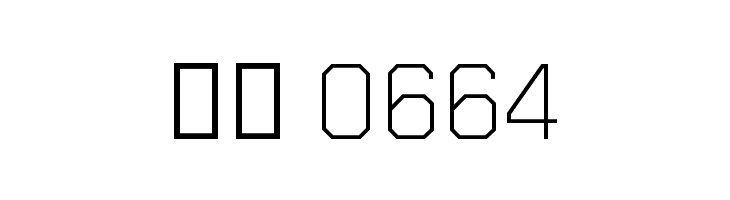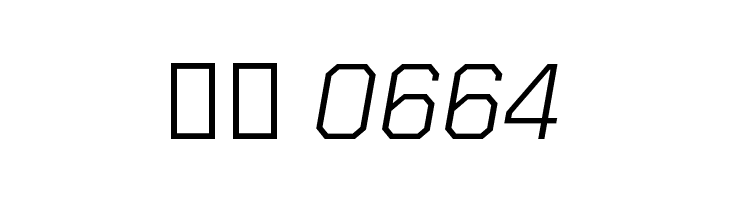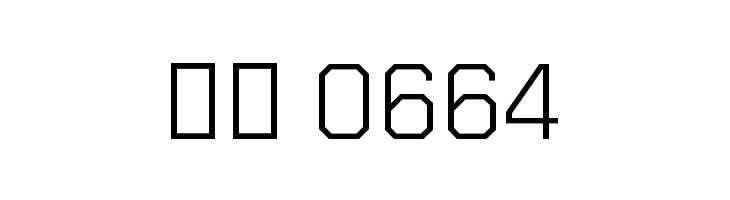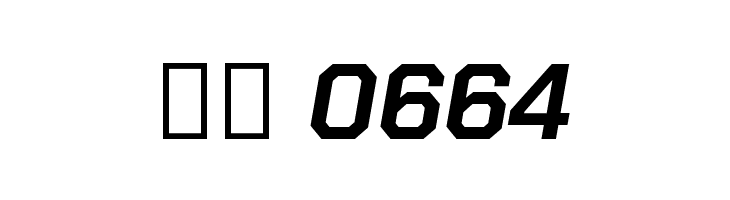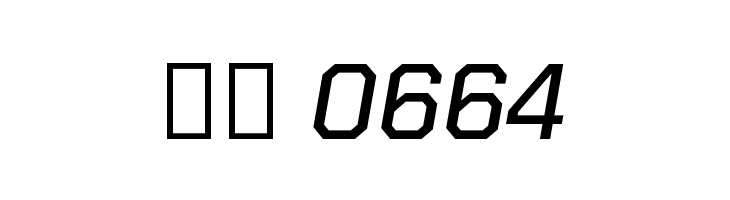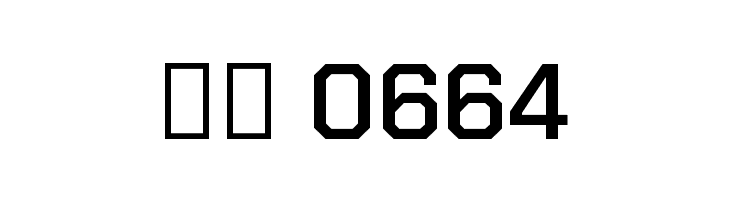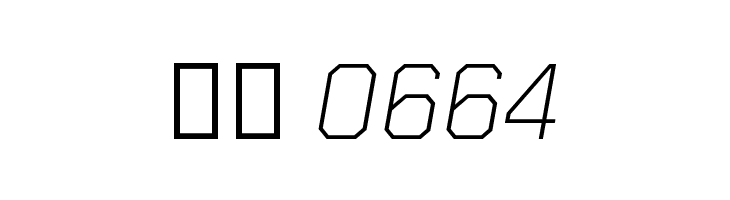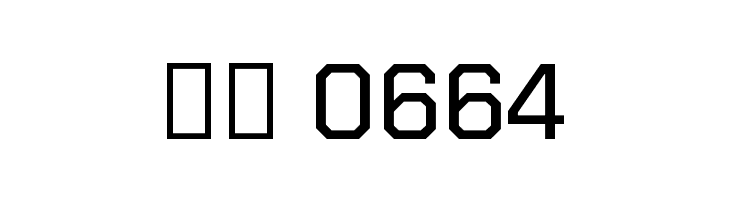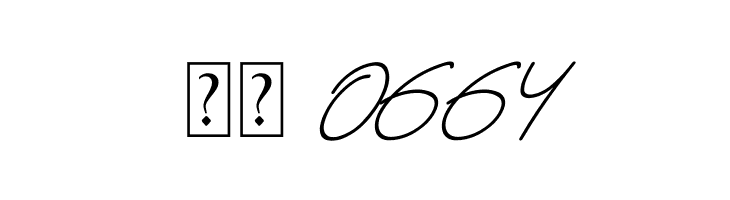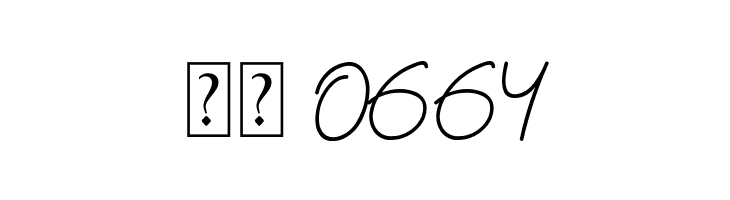
• Chakra Petch Bold Italic
A bold, italicized font with a modern, geometric design.
• Chakra Petch ExtraLight
A geometric, modern font with octagonal shapes and thin strokes.
• Chakra Petch ExtraLight Italic
A modern, geometric italic font with an extra light weight and sharp, angular letterforms.
• Chakra Petch Italic
A modern, geometric italic font with a sleek and dynamic appearance.
• Chakra Petch Light
A geometric, modern font with angular, technical styling.
• Chakra Petch Light Italic
A modern, geometric italic font with a sleek, technical aesthetic.
• Chakra Petch Medium
A modern, geometric font with angular and structured letterforms.
• Chakra Petch Medium Italic
A modern, geometric sans-serif font with an italic slant and medium weight.
• Chakra Petch Regular
A geometric, modern font with angular, futuristic design.
• Chakra Petch SemiBold
A geometric, modern typeface with bold, angular characters.
• Chakra Petch SemiBold Italic
A modern, semi-bold italic font with a dynamic and futuristic style.
• chalala-script
An elegant, flowing script font with graceful loops and swirls.
• Chalisa
A graceful and elegant script font with fluid, continuous strokes.
• Chalisa Italic
An elegant, flowing script font with a cursive, handwritten style.
• Chalisa Oktavia
A sophisticated script font with elegant curves and decorative flourishes.
• Chalisha Regular
An elegant, flowing script font with a natural handwriting style.
• Chalisha-Regular
An elegant, flowing script font with a natural handwriting style.
• Chalista
A dynamic and flowing script font with elegant, fluid letterforms.
• Chalk and Pamor
A hand-drawn, chalk-like font with textured, dynamic strokes.
• CHALK BOARD
A bold, playful font with rounded edges, perfect for casual and inviting designs.
• Chalk Board